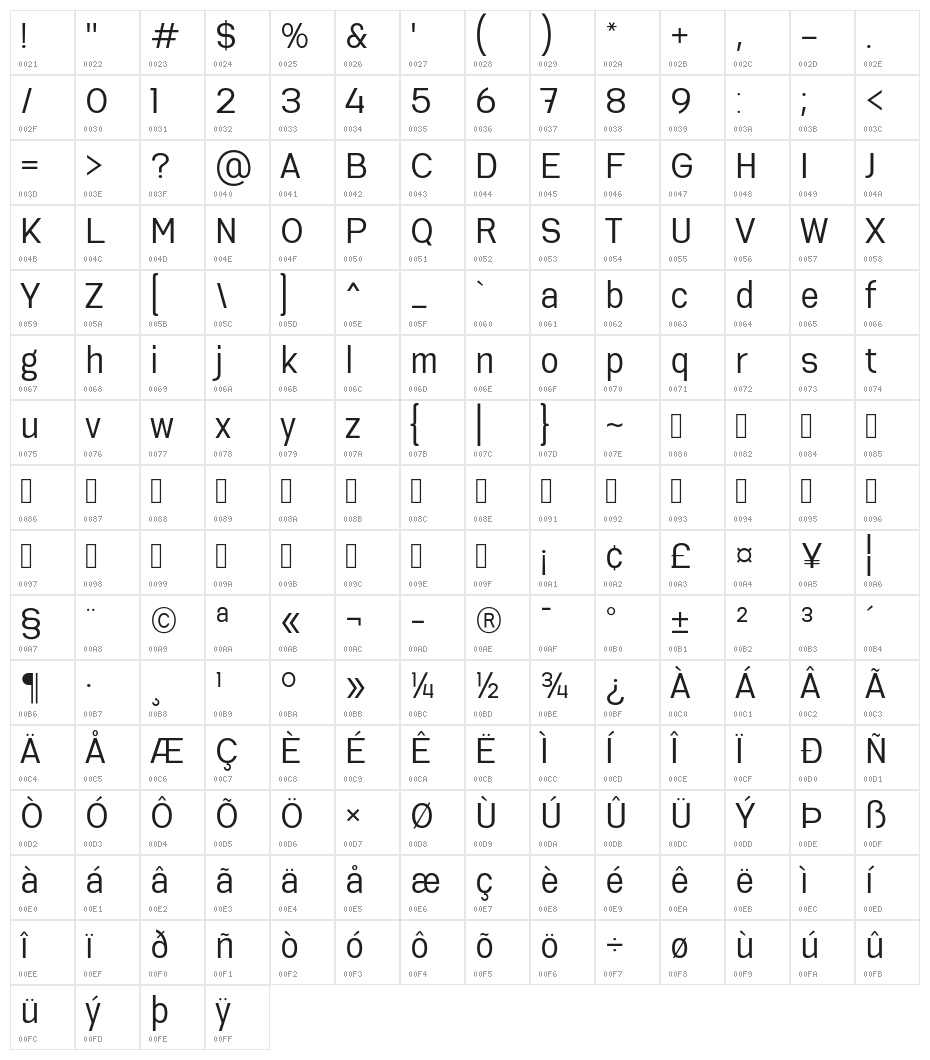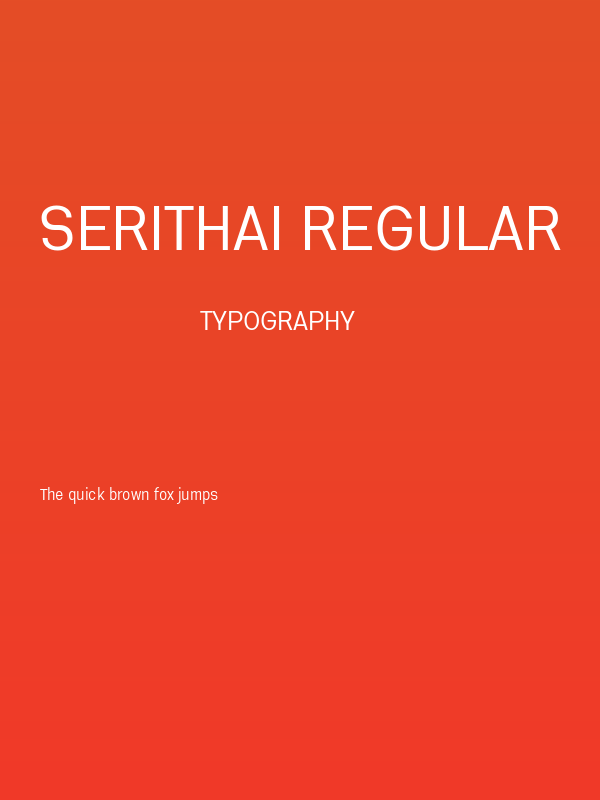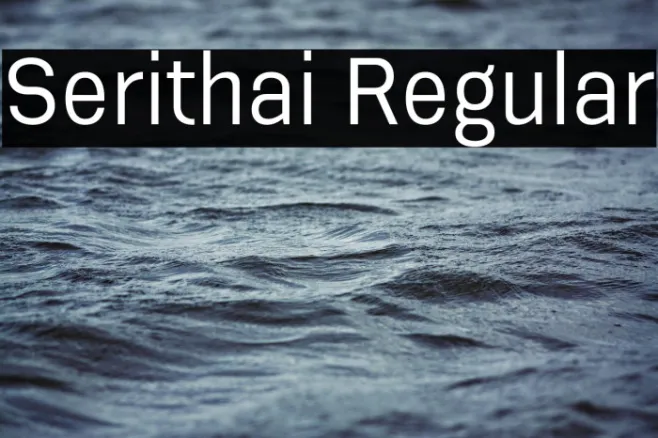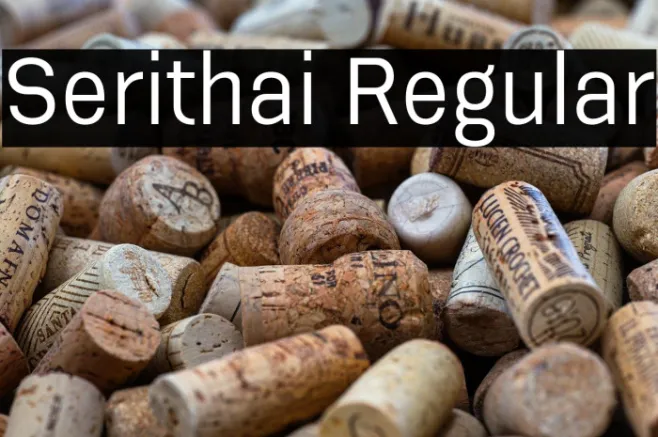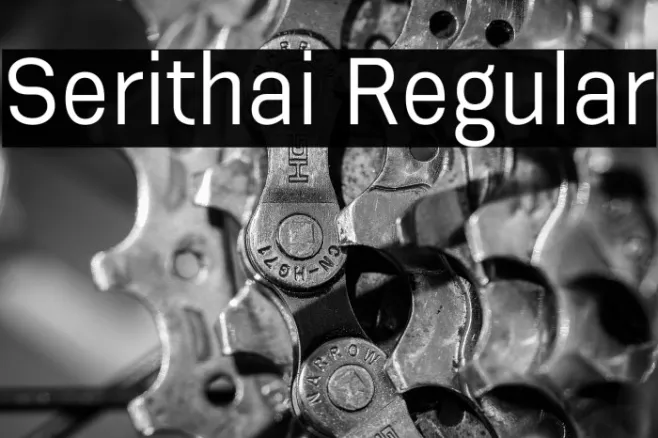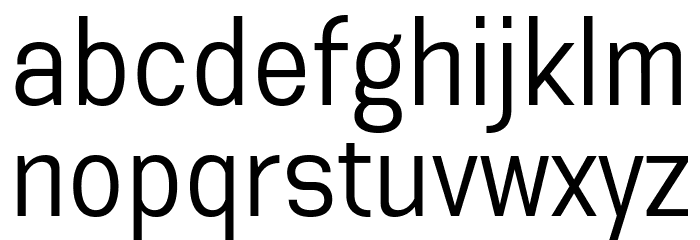
Serithai Regular Font
Serithai Regular Description
This font features a clean and modern sans-serif design, characterized by its simplicity and clarity. The letters are evenly spaced with a consistent stroke width, providing a balanced and harmonious appearance. The uppercase and lowercase letters maintain a uniform height, enhancing readability. The numerals are straightforward and align well with the overall style, while the special characters are distinct and easily recognizable. This font's minimalistic approach makes it versatile for various design applications.
| Proposed Projects | Ideal for use in digital interfaces, corporate branding, editorial design, and minimalist posters. |